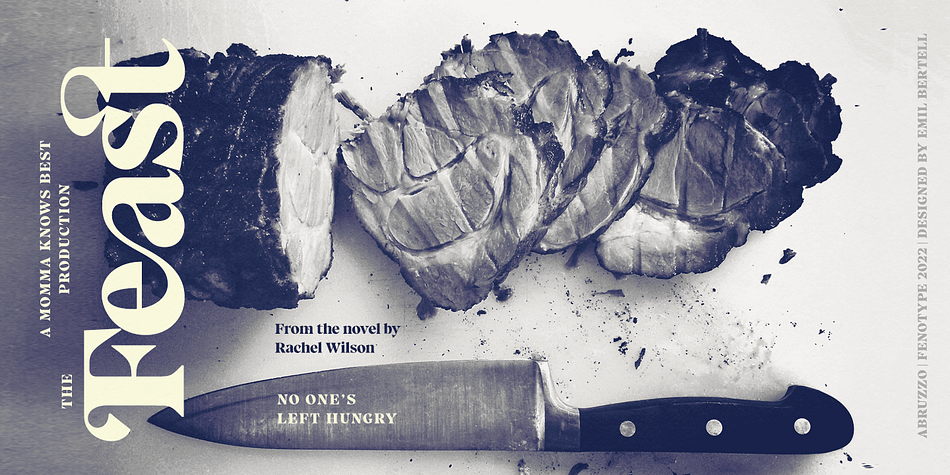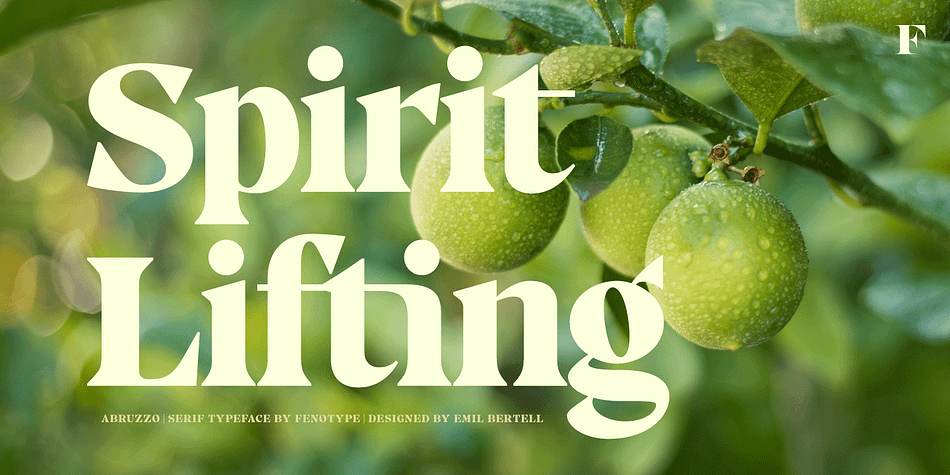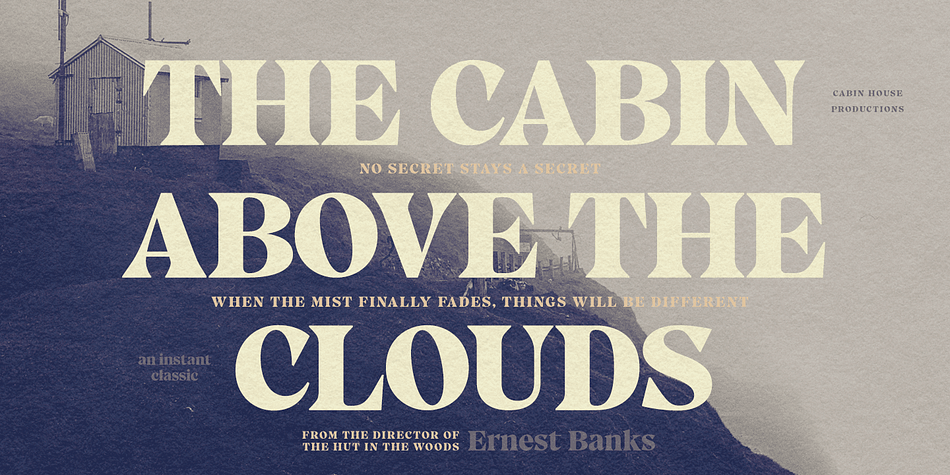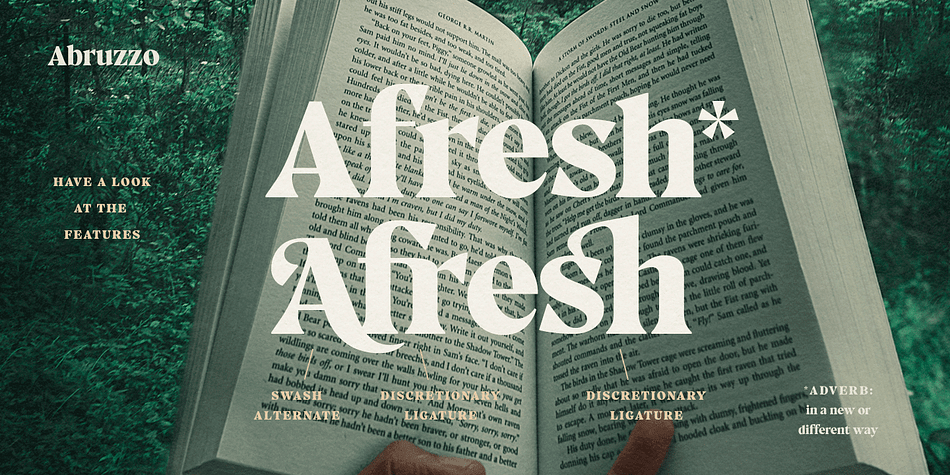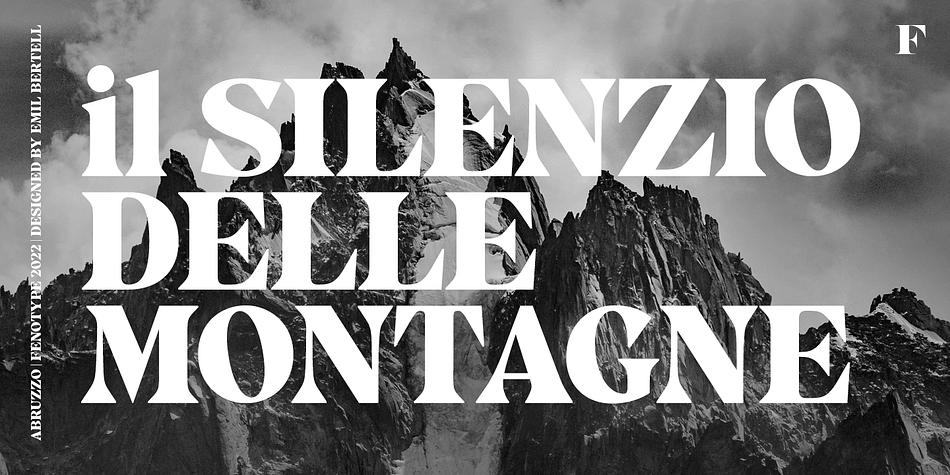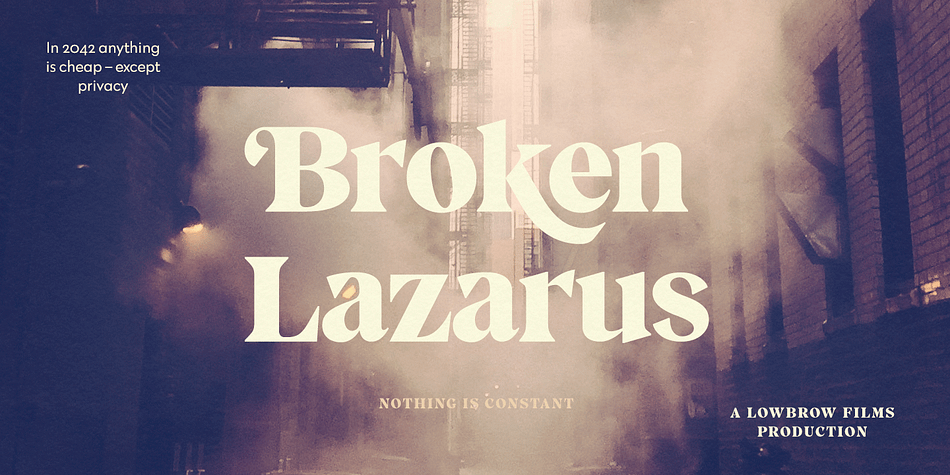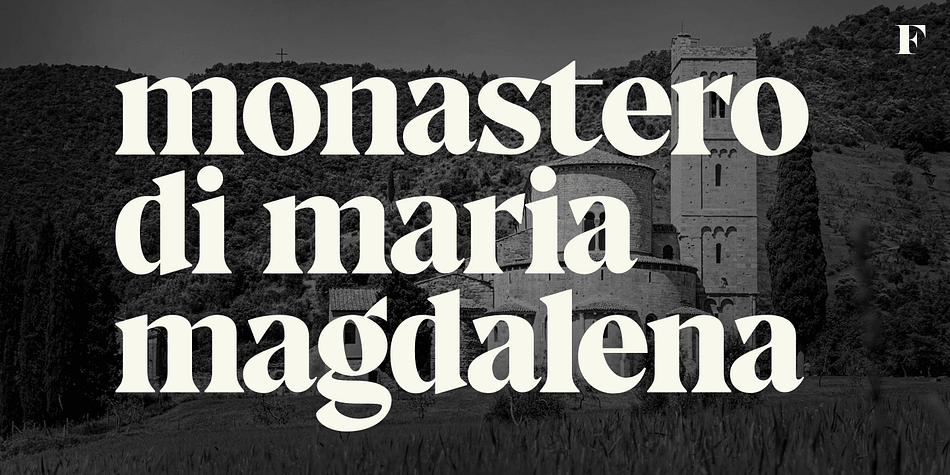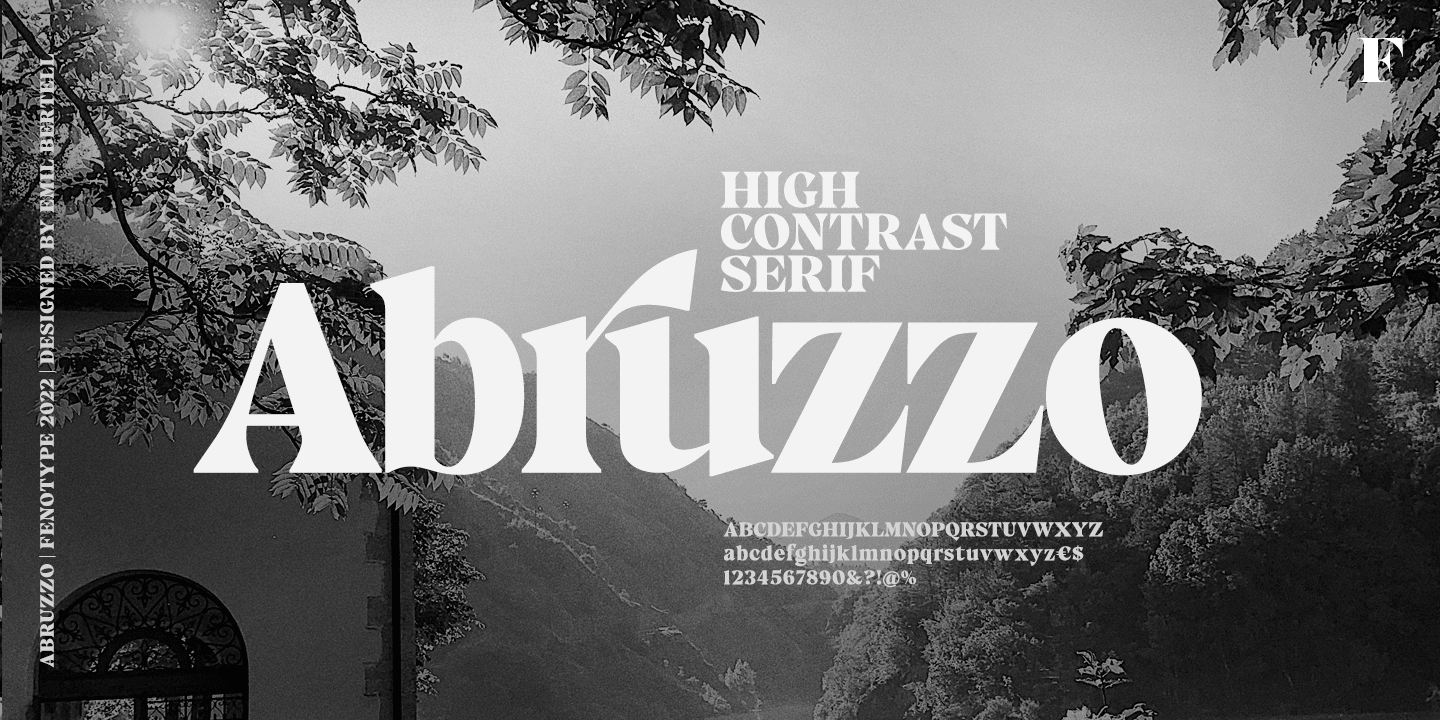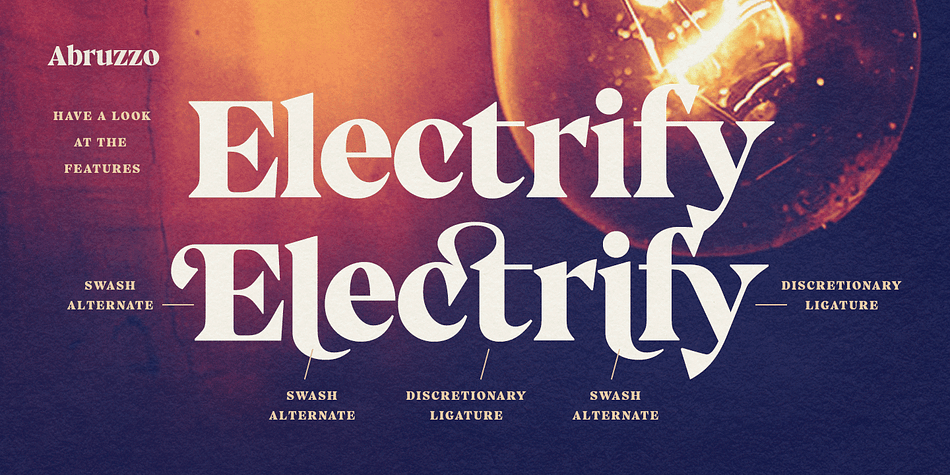
Designed by Emil Bertell, Abruzzo is a display serif, retro and serif font family published by Fenotype.
Forte e gentile, “strong and kind” is the motto of Abruzzo region located in central Italy on the Adriatic coast. As the region it’s named after, Abruzzo typeface is strong yet inviting with its sharp angular serifs and smooth transitions. Abruzzo is a display typeface with high contrast, large x-height and plenty of character.
Abruzzo is equipped several OpenType features: Standard ligatures that take care of the collisions between f and other tall lowercase characters, and for more fun there is over 40 Discretionary ligatures including st, ch and plenty of more unconventional character combinations, such as fy, fr, rw, vi, and so on. See the full range in the specimen poster. On top of that Abruzzo has over 70 variants for the standard characters set in Swash, Stylistic and Titling Alternates.
Abruzzo best used in stylish headlines, advertising, packages or as a logotype.